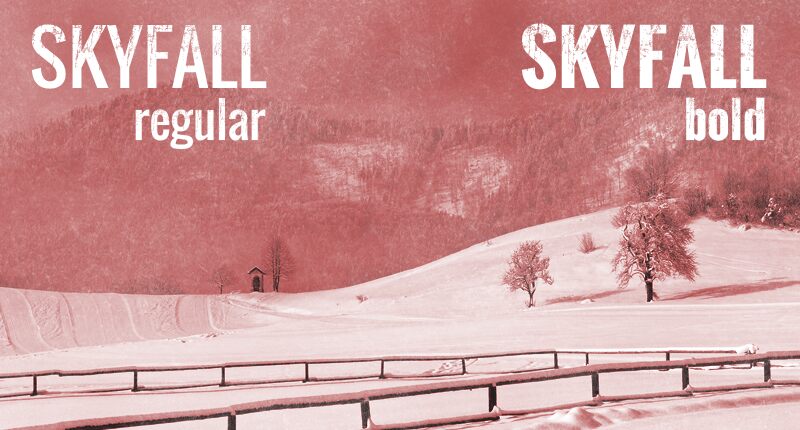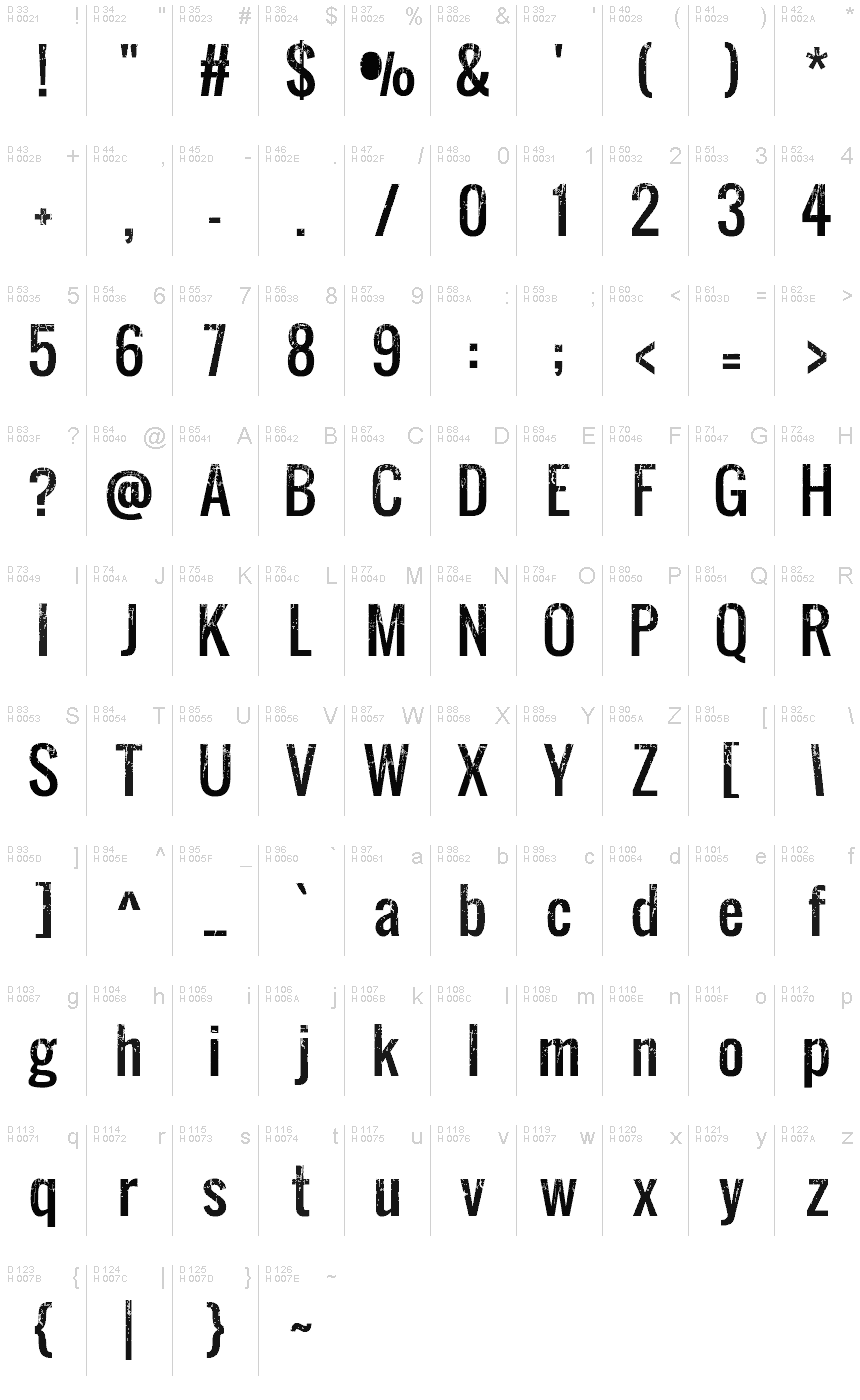
Skyfall Regular
Inspired by James Bond 007 "SKYFALL" movie. This font comes with regular and bold style. Contact me if you want the full package.
Skyfall
The font inspired by "Skyfall, James Bond 007" Movie.